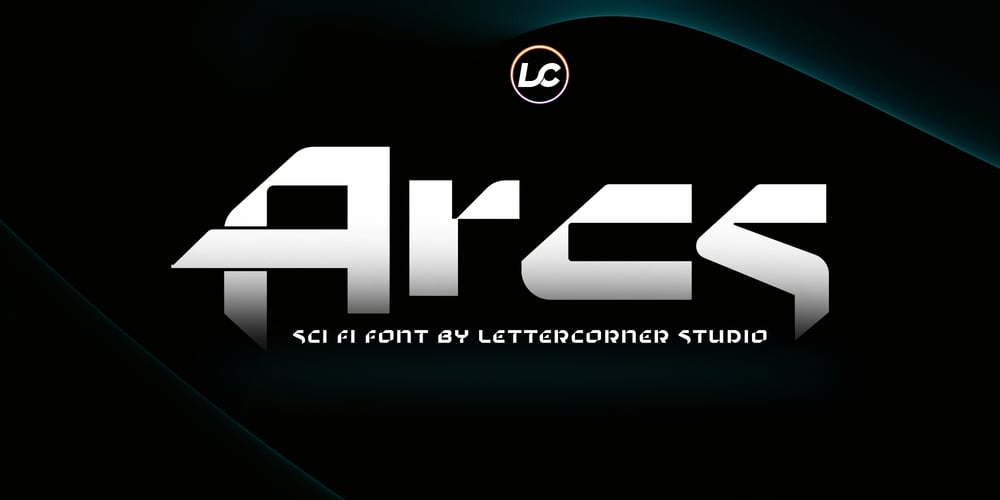
Arcs Font Family was designed by Muhammad Afif Ersya and published by Trequartista Studio. Arcs contains 2 styles and family package options. Arcs, a brand new display font. It’s quirky letterforms make this font perfect for branding, headlines, logotype, stickers, editorial design, and more.Features : uppercase & lowercase numbers and punctuation Alternates & Multilingual Support We highly recommend using a program that supports OpenType features and Glyphs panels like many of Adobe apps and Corel Draw, so you can see and access all Glyph variations.